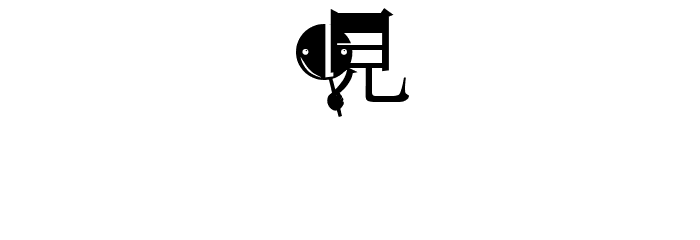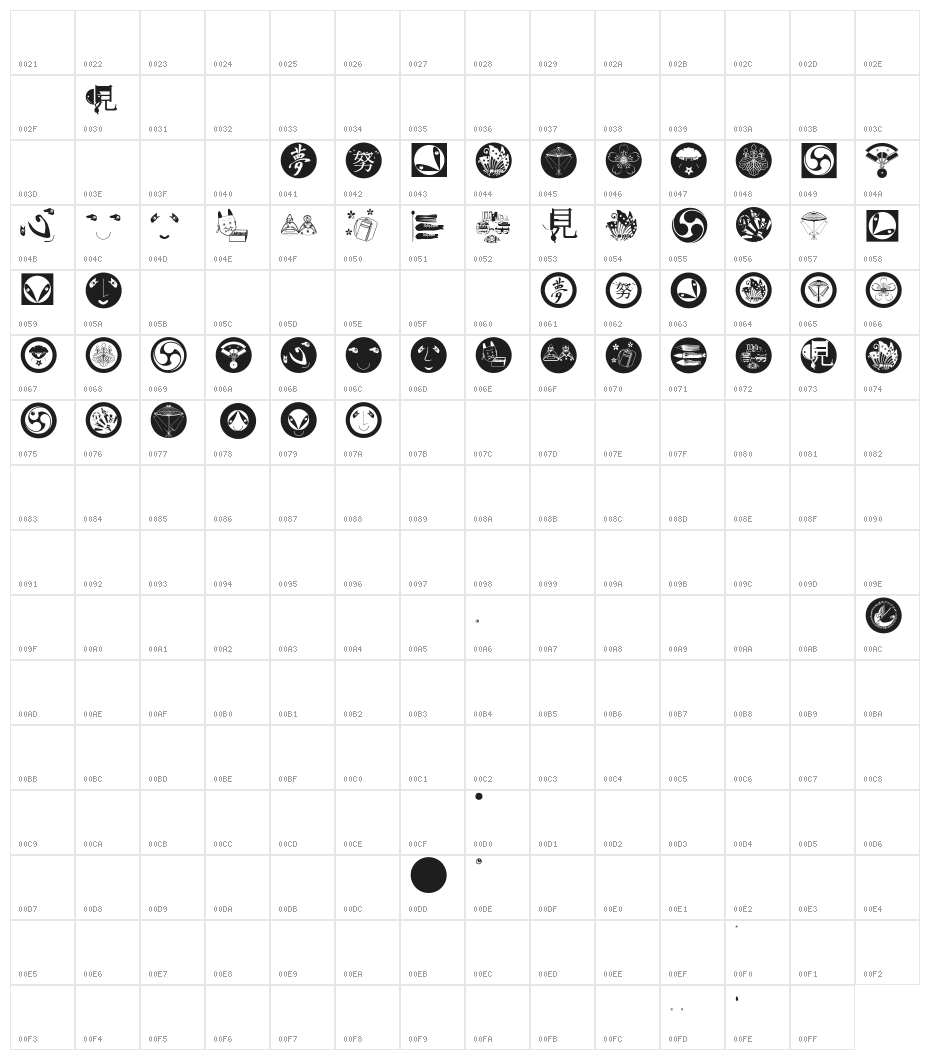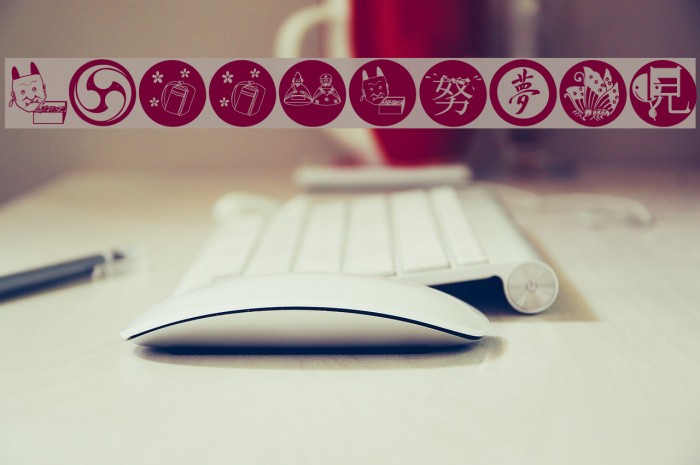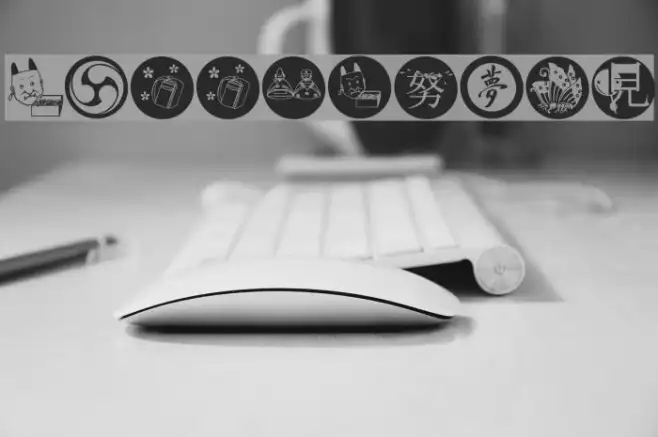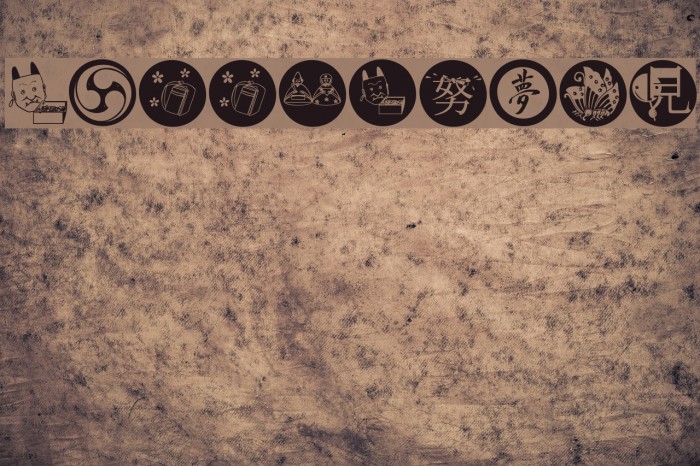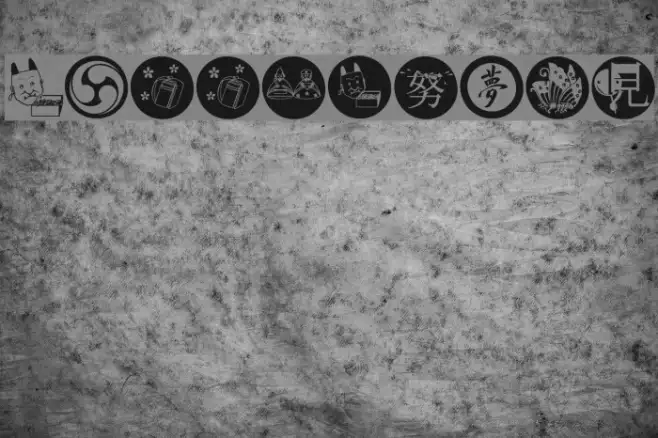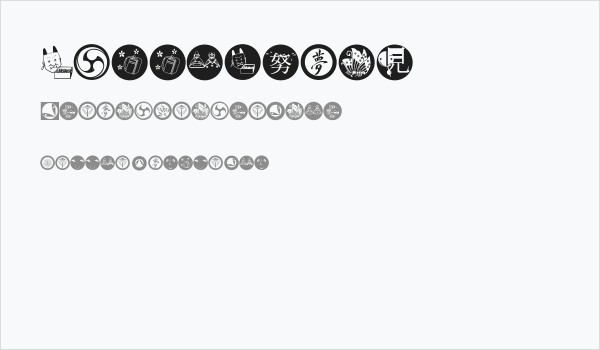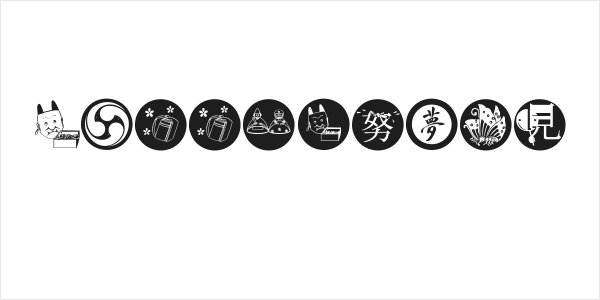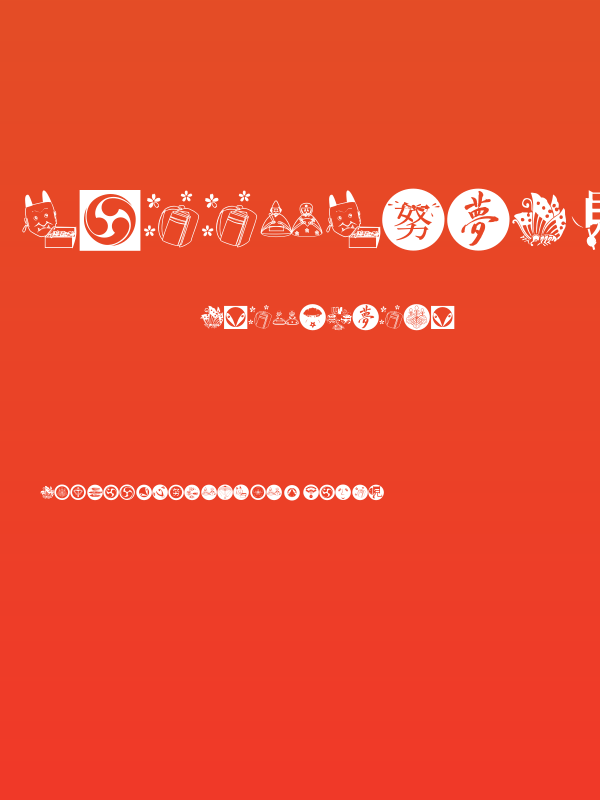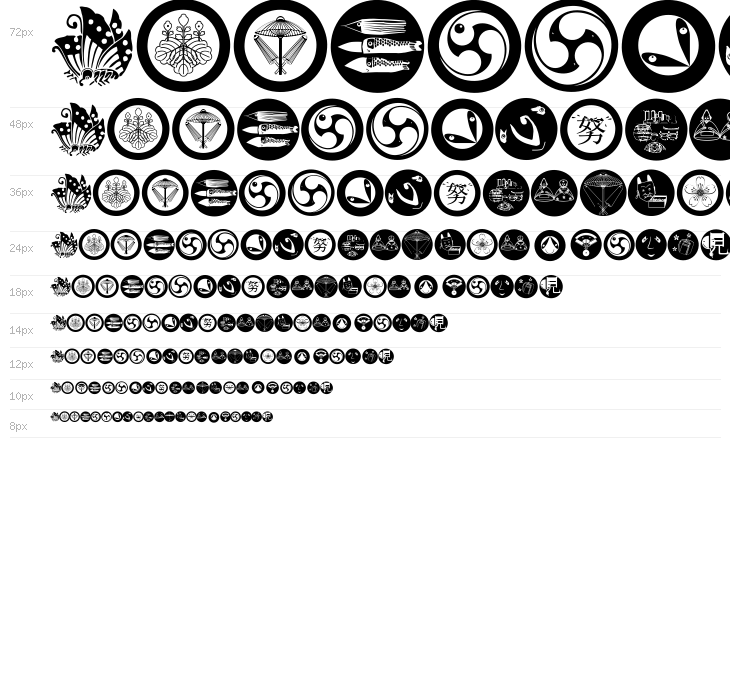
NipponBats Font
NipponBats Description
This set of symbols is not a traditional font but rather a collection of decorative icons and illustrations. Each character is encased in a circular frame, featuring a variety of intricate designs ranging from abstract shapes to cultural motifs. The symbols are highly stylized, with a playful and artistic flair, making them suitable for creative and thematic projects. The designs are bold and visually striking, with a consistent use of black and white contrast that enhances their visual impact.